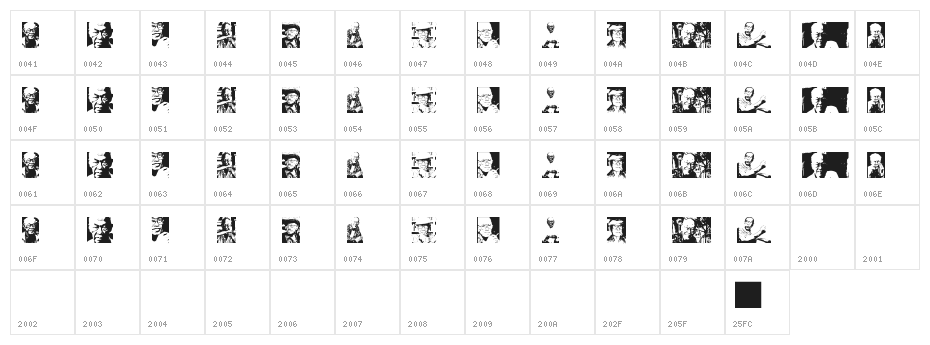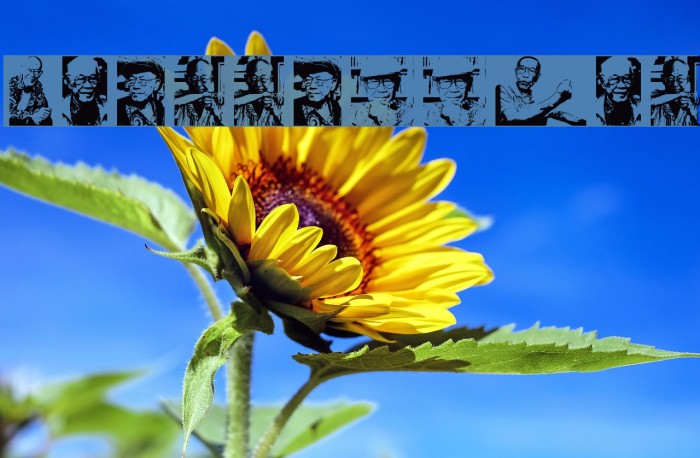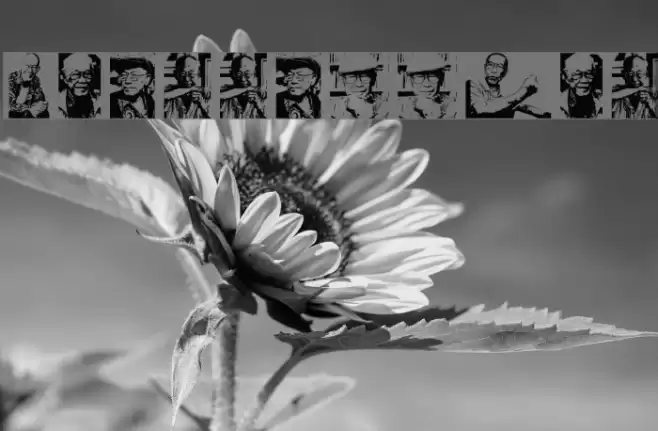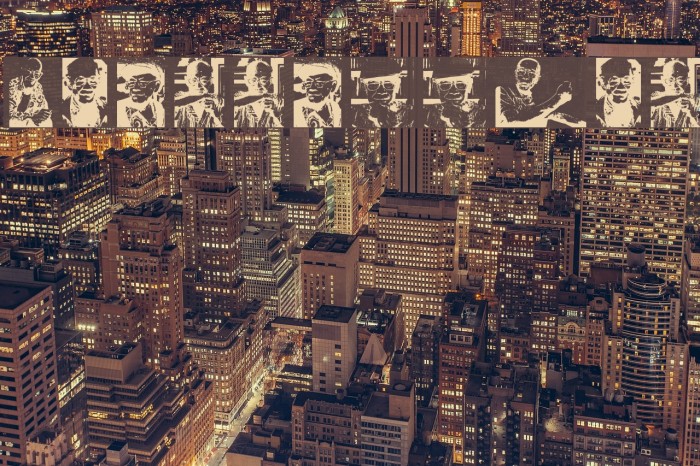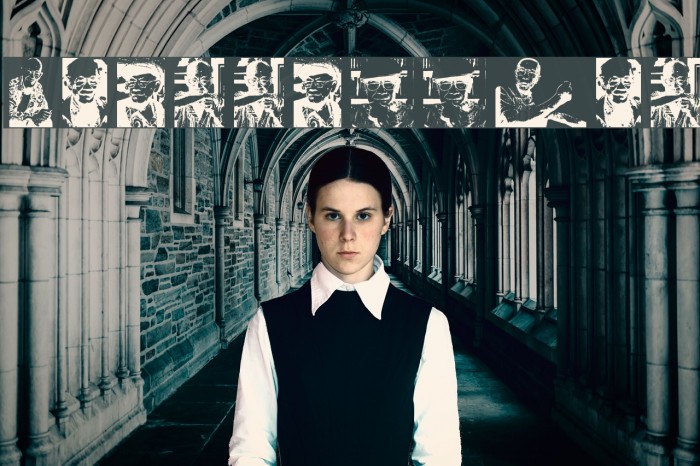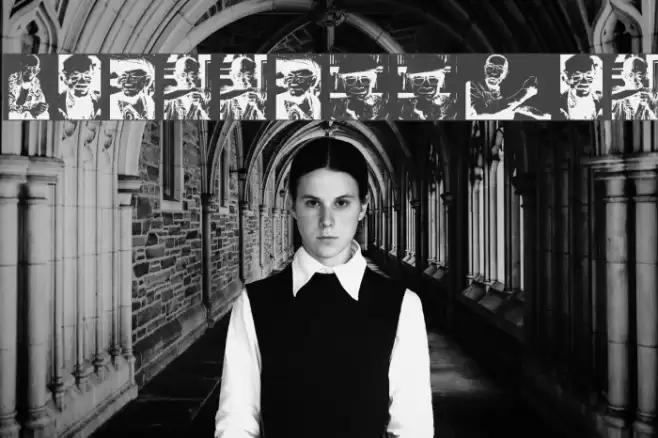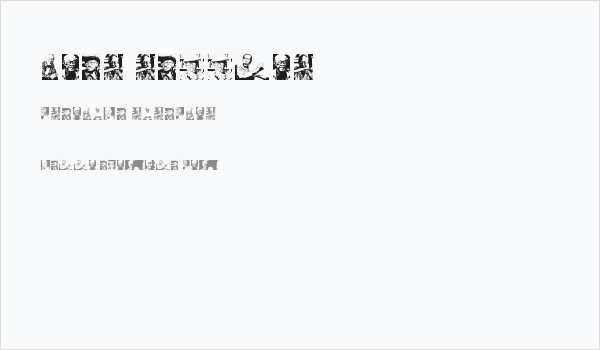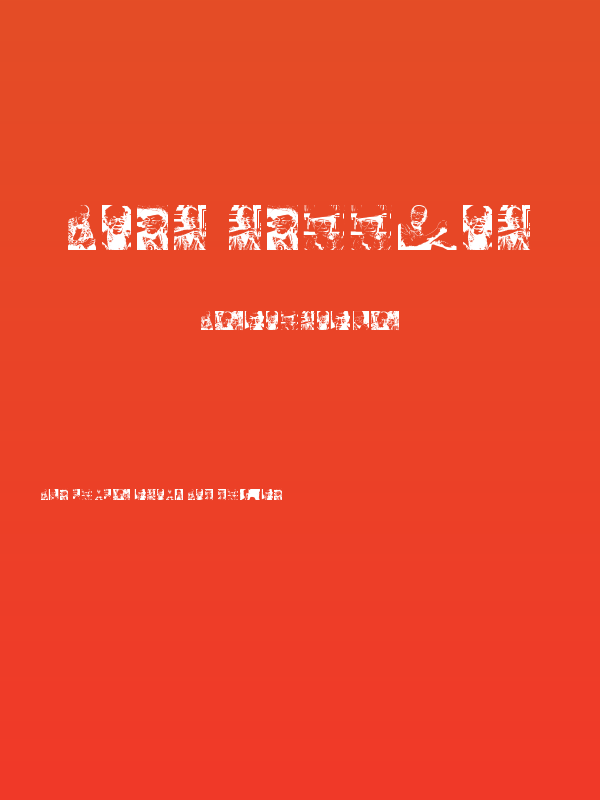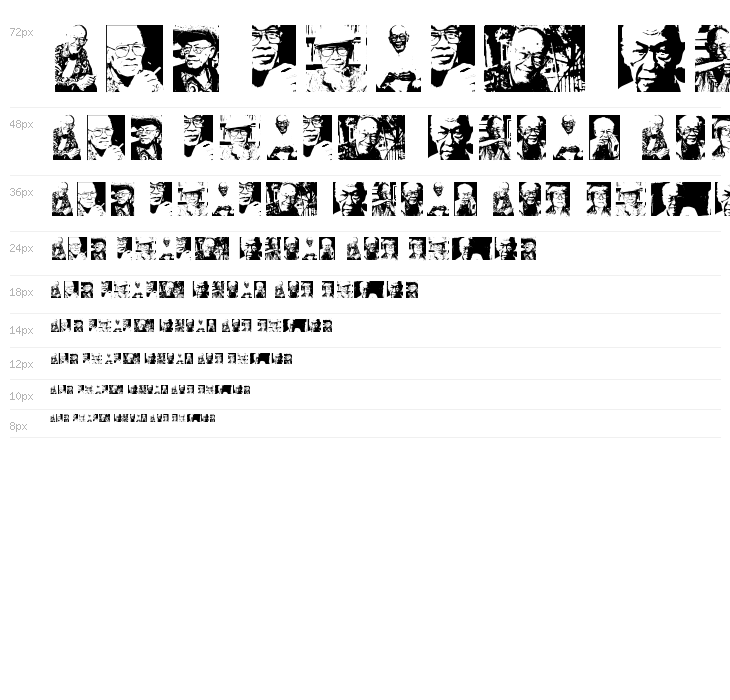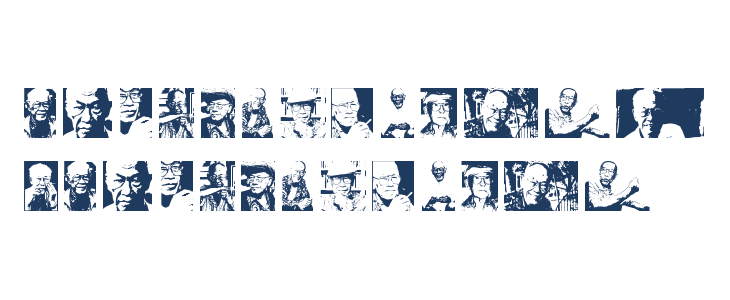
Toer Regular Font
Toer Regular Description
A highly decorative and unconventional typeface where each character is represented by a black-and-white photographic portrait, resulting in a font that is more pictorial than typographic.
| Overall Style | Decorative, Experimental, Artistic |
| Use Case | Display, Posters, Art projects, Not suitable for body text |
| Proposed Projects | Art installations, experimental posters, album covers, avant-garde branding, visual art projects. |